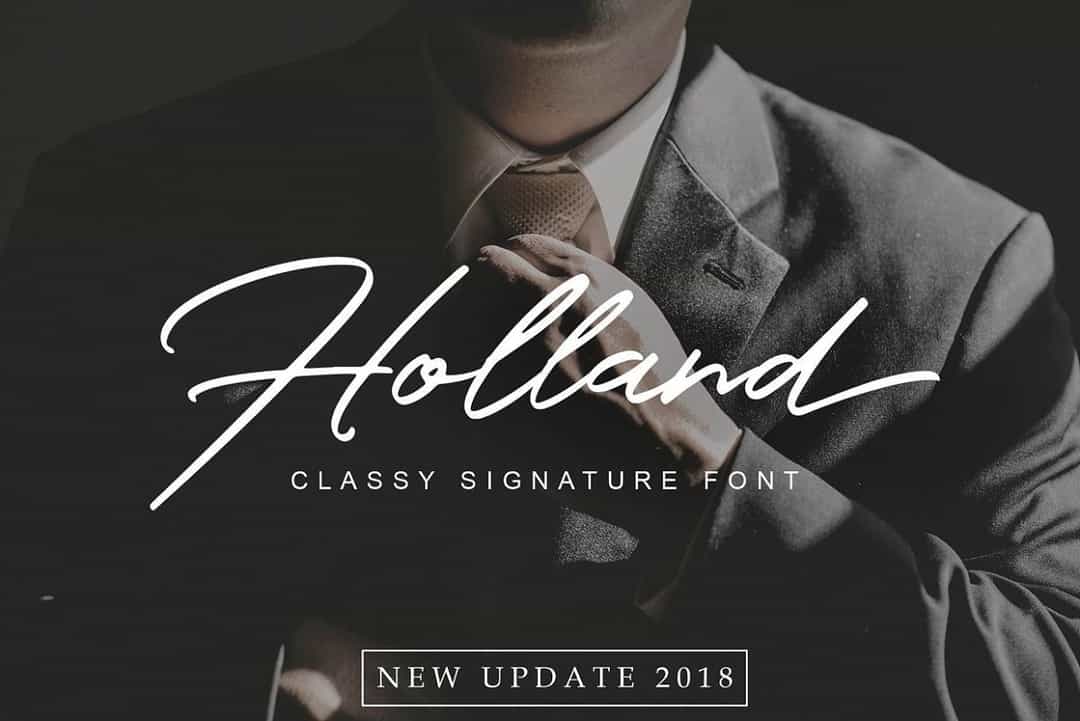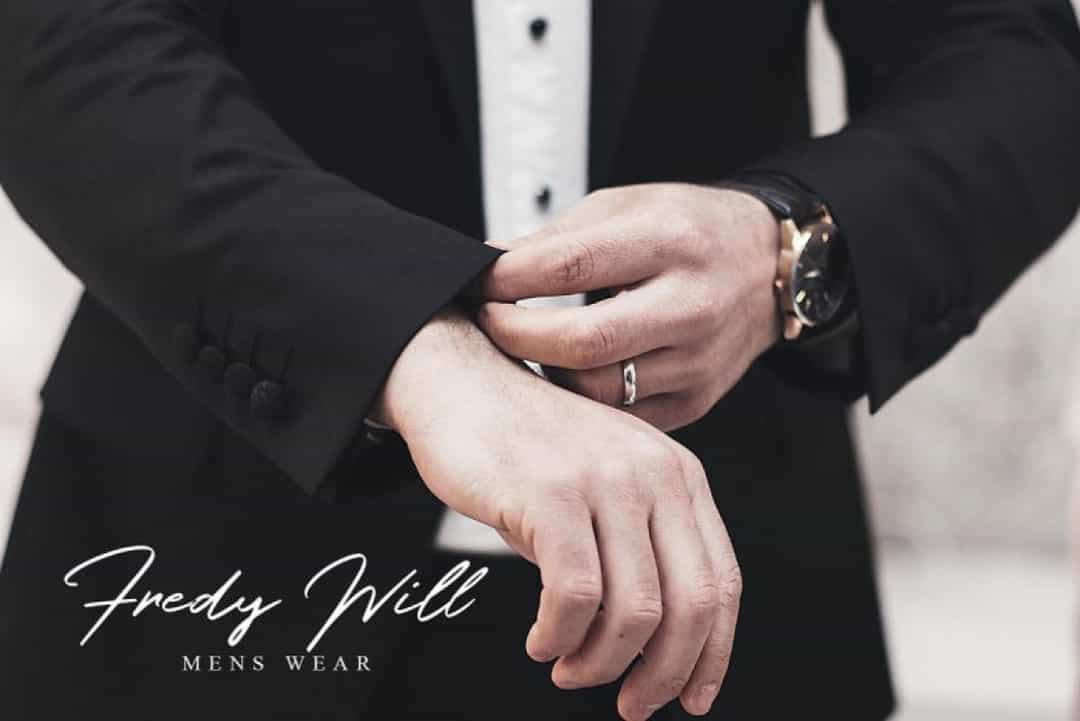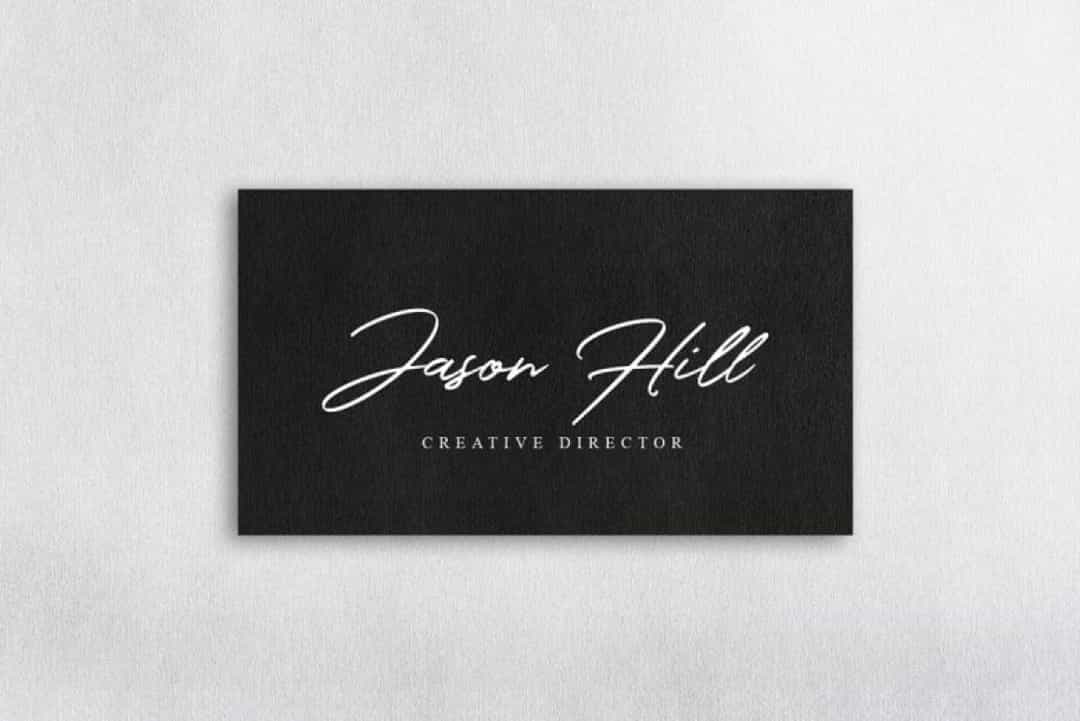
Discover Holland Font Free, part of the Handwritten Monoline collection—a versatile and unique font perfect for adding a personal touch to your projects. Download it for free and enjoy crafting designs with style, from invitations to social media posts. This font is available exclusively for personal use, giving you the freedom to create without limits. Unlock your creativity with Holland Font Free today!
Holland Script Font! This is a high-quality typeface of Lettersiro Co that people can visit on creativemarket site or download it for free. Holland Script is a beautiful modern script with unique application in signature, wedding photography branding, and signatures that appears simple but with great structural design.